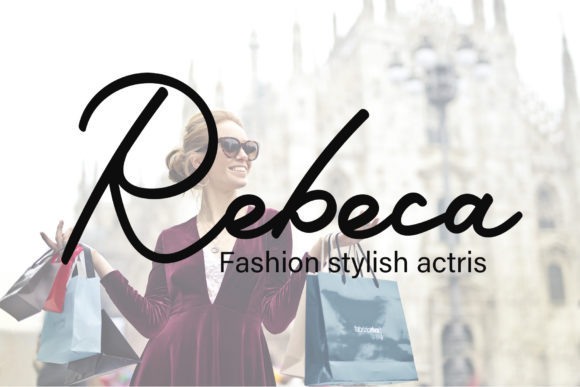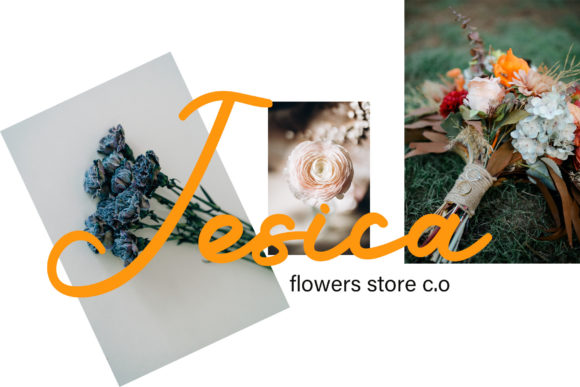
The Millioner Font
db-ku.com - Script & Handwritten -- The Millioner is a sweet handwritten font made with great care to produce the expected outcomes. This font can be used for writing various kinds of products according to their respective needs.